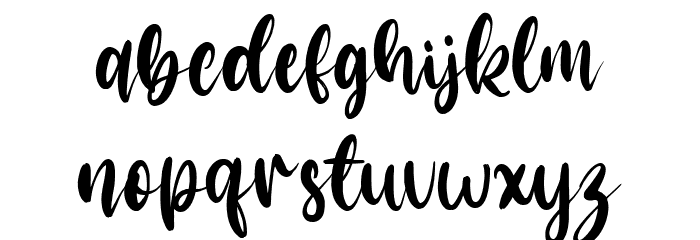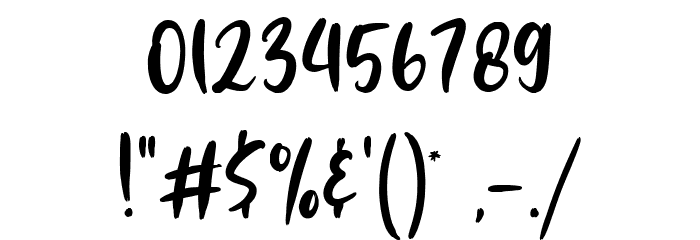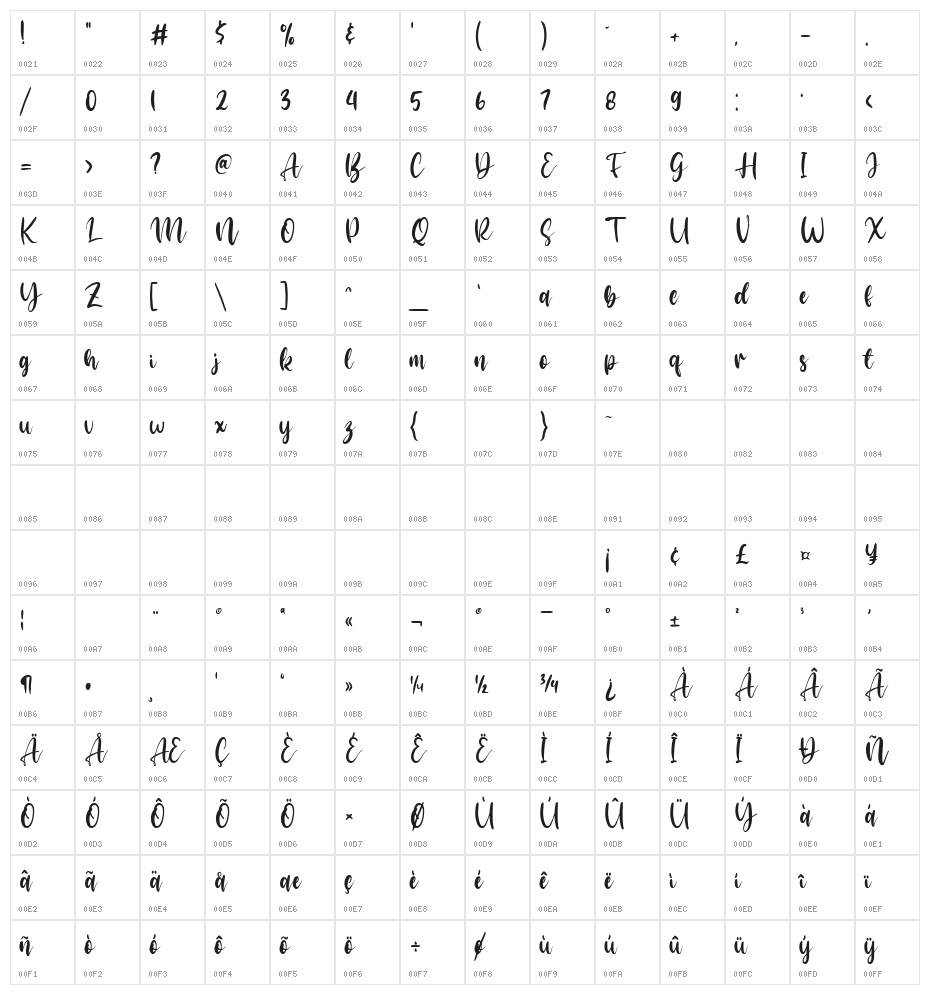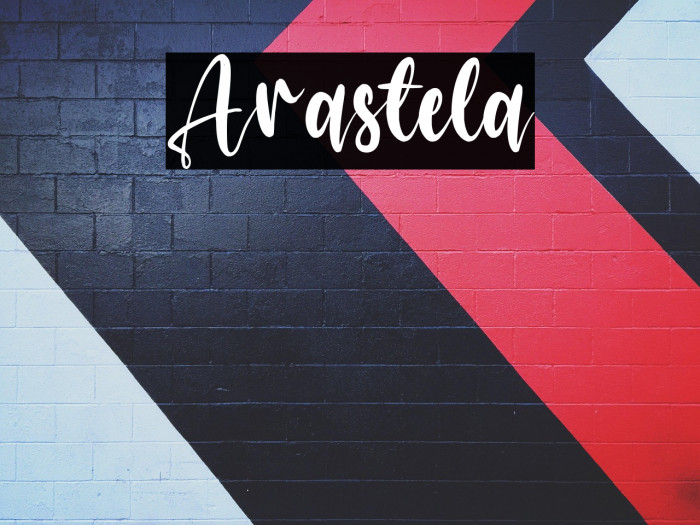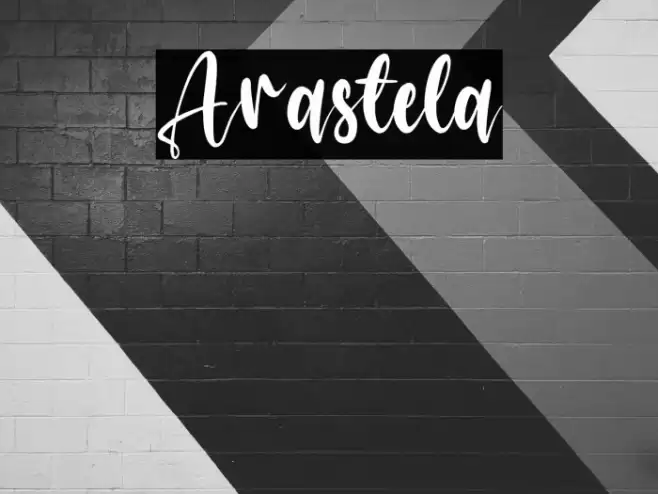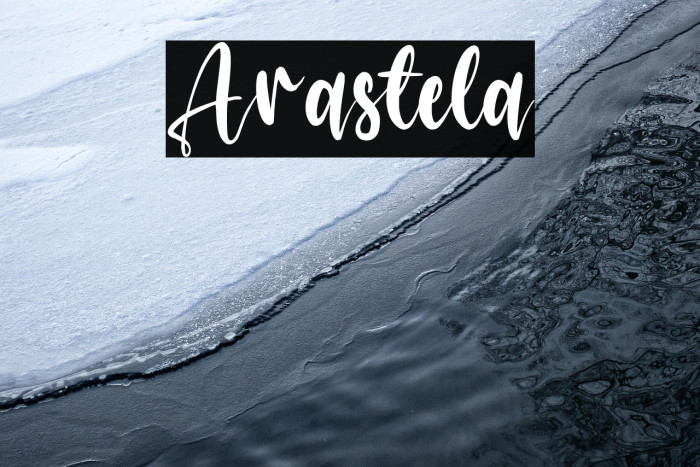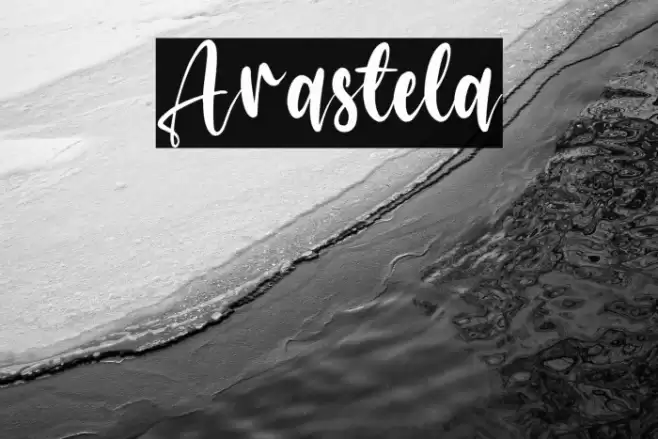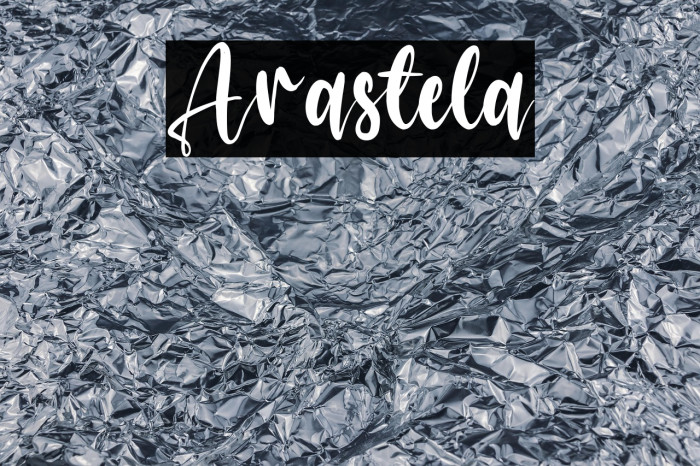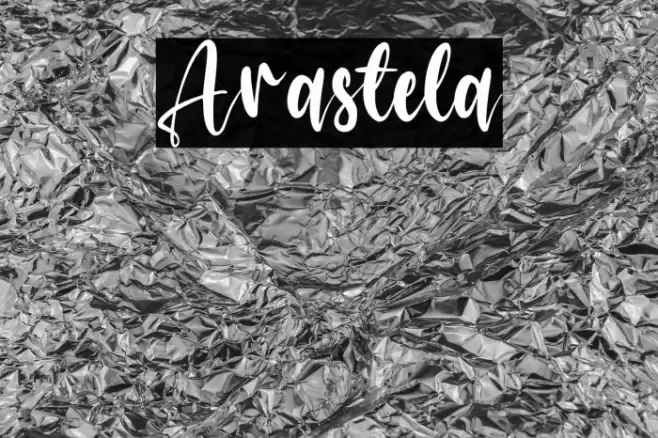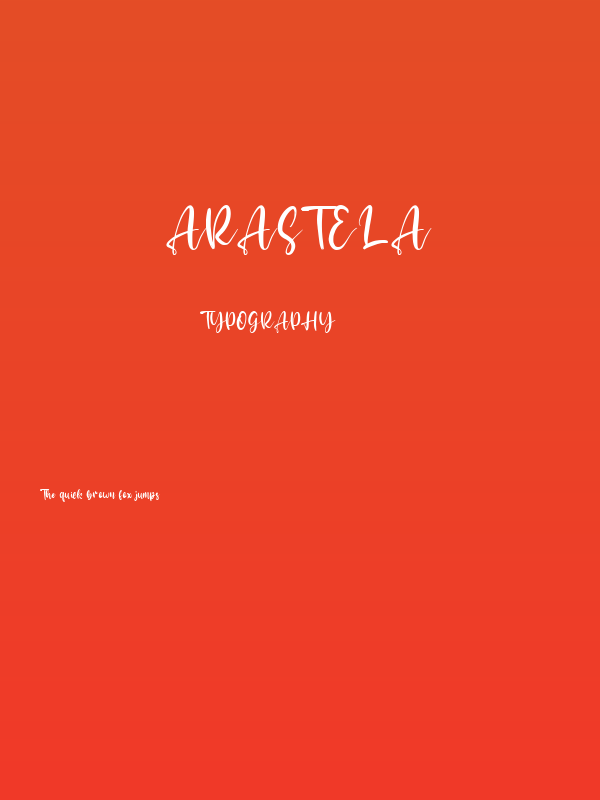
Arastela Font
This font features a lively and expressive script style, characterized by its flowing, cursive letterforms that convey a sense of elegance and dynamism. The strokes are bold and confident, with a smooth, continuous flow that mimics natural handwriting. The uppercase letters are slightly more elaborate, with decorative flourishes that add a touch of sophistication. The lowercase letters maintain a consistent rhythm, enhancing readability while preserving the font's artistic flair. Numbers and special characters are designed to match the overall aesthetic, ensuring a cohesive look across all text elements.
A bold and expressive script font with elegant, flowing cursive letterforms.
- Font: Arastela
- Proposed Projects: Ideal for wedding invitations, branding projects, greeting cards, and social media graphics.
- Category: Script
- Use Case: Logos, Headlines, Invitations